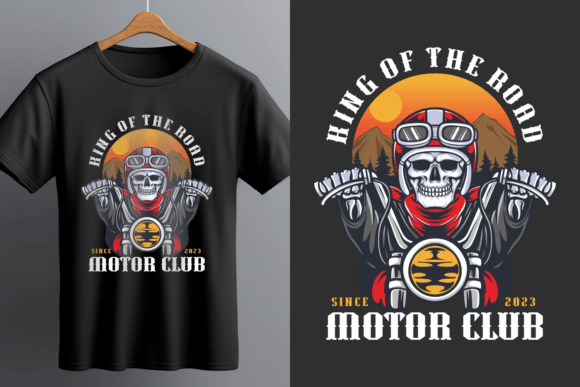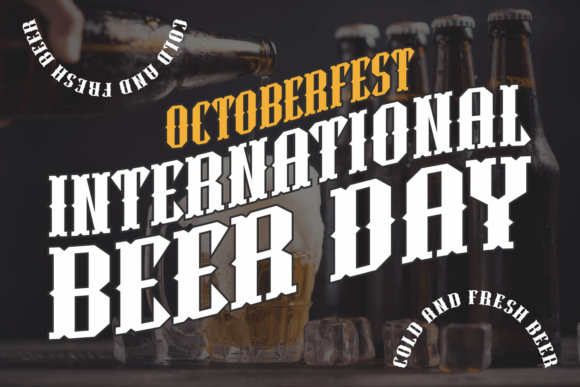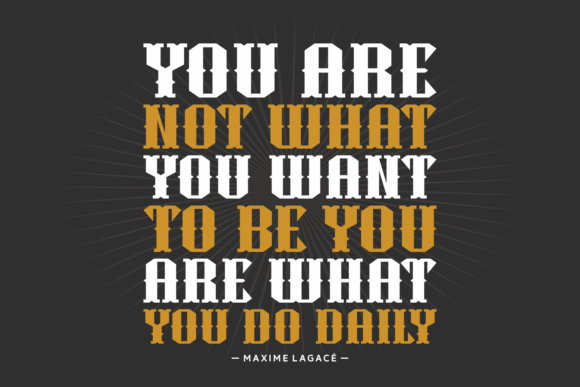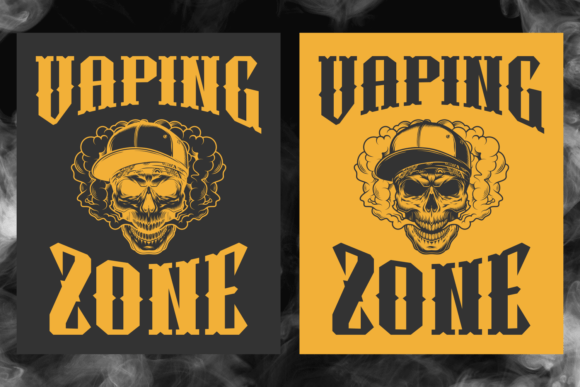
The Power of Dark Bond: Unleashing a Classic Blackletter Font
I’ll never forget the project that led me to discover the incredible Dark Bond Font. I was working on a branding campaign for a Gothic-inspired fashion label, and I was struggling to find the perfect font to capture the essence of their dark, mysterious vibe. That’s when I stumbled upon Dark Bond, and it completely transformed my design. In this article, I’ll share my experience with this amazing font, its features, and how to make the most of it in your creative projects.
An Honest Review of Dark Bond Font
- ✨ Bold and striking appearance: Dark Bond’s thick, blackletter design instantly adds a touch of sophistication and drama to any typography project.
- ✅ High versatility: This font can be used for a wide range of creative projects, from branding and advertising to packaging and editorial design.
- 💯 Ease of use: Dark Bond is incredibly easy to read, even in smaller sizes, making it perfect for body text or headlines.
While Dark Bond is an amazing font, there are a few things to keep in mind:
- 🤔 Limited suitability for light backgrounds: Due to its bold design, Dark Bond works best on dark or colored backgrounds. Using it on light backgrounds might make the text appear washed out.
- ⚠️ Some OpenType features may not work on all platforms: While Dark Bond supports OpenType features like glyphs and stylistic alternates, some platforms may not display them correctly.
The Backstory of Dark Bond Font
Dark Bond was designed by a team of typographers who wanted to create a font that would evoke the mystery and drama of classic blackletter typefaces. Inspired by ancient manuscripts and Gothic architecture, they crafted a font that’s both elegant and bold. While the designers behind Dark Bond remain anonymous, their work has clearly made an impact on the design community.
Q: What is the best way to use Dark Bond Font?
A: Dark Bond works best as a display font, used for headlines, titles, or branding elements. However, it’s also legible enough to be used for body text in smaller sizes.
Q: Does Dark Bond Font support OpenType features?
A: Yes, Dark Bond supports OpenType features like glyphs, stylistic alternates, and more. These features can be accessed in compatible design software like Adobe Photoshop and Illustrator.
Q: Is Dark Bond Font suitable for digital use?
A: Absolutely! Dark Bond is optimized for both print and digital use, making it perfect for a wide range of creative projects, from social media graphics to website headers.